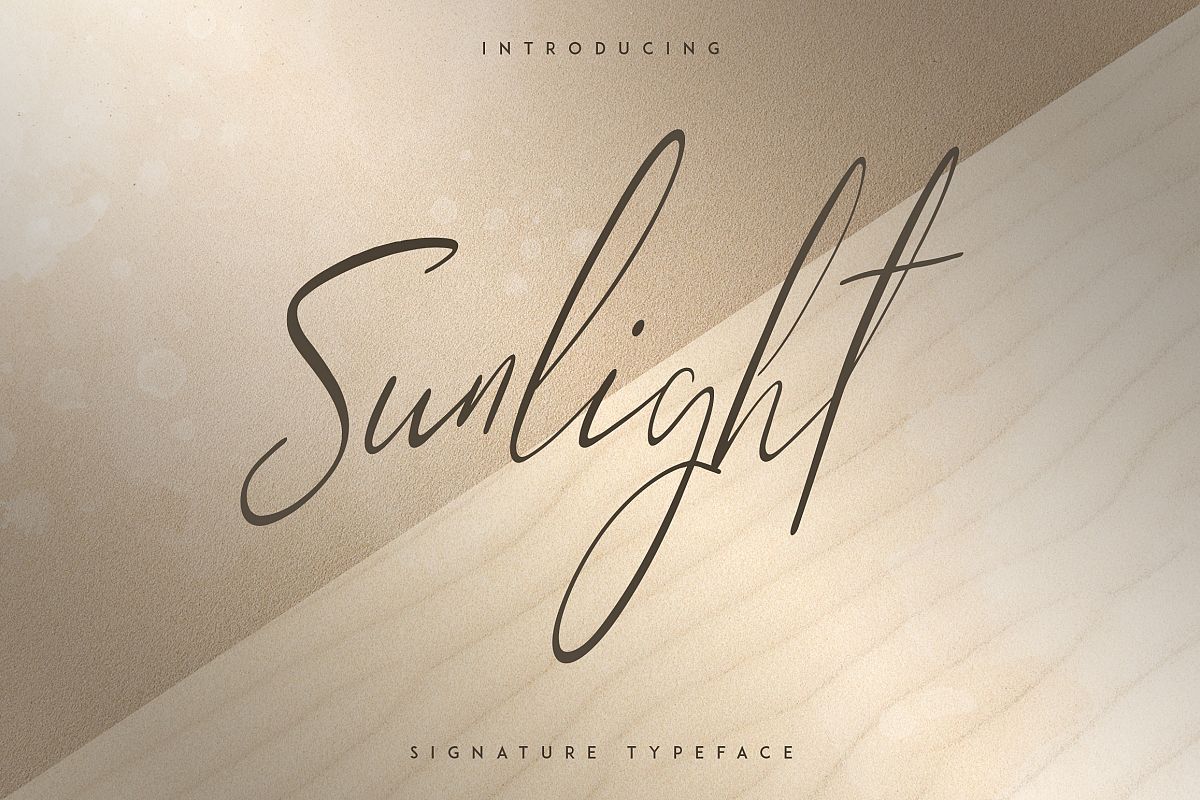
Sunlight - Signature typeface
Sunlight-SuperItalic
Sunlight-Italic
Sunlight-Regular
Introducing Sunlight Signature typeface
Sunlight is signature, clean typeface with 3 styles and multilingual support.
It's a very versatile font that works great in large and small sizes.
Sunlight is perfect for branding projects, home-ware designs, product packaging, magazine headers - or simply as a stylish text overlay to any background image.
• Uppercase,lowercase,numeral,punctuation & Symbol
• Multilingual
• Regular
• Italic
• Super Italic
• Ligatures - ll, oo, tt, ee